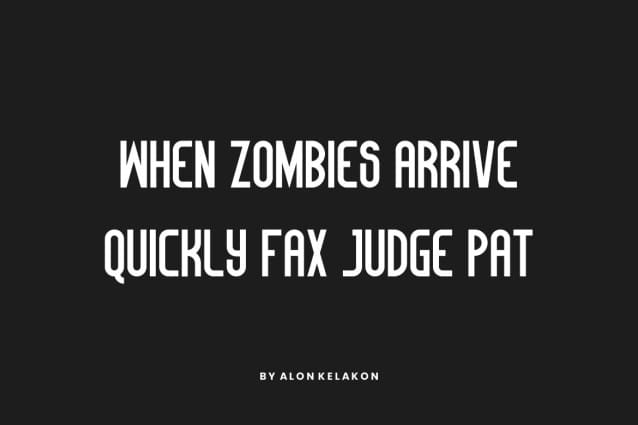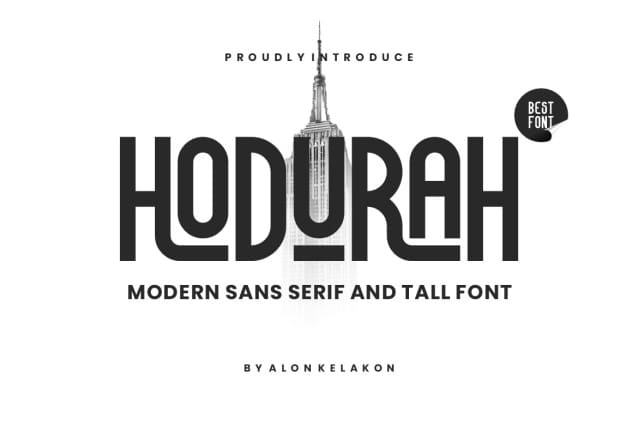
Hodurah Font
Hodurah Font is unique. Ready to be used for your designs, such as labeling, movie scene, poster, movie title, concerts, album covers, logos and much more.